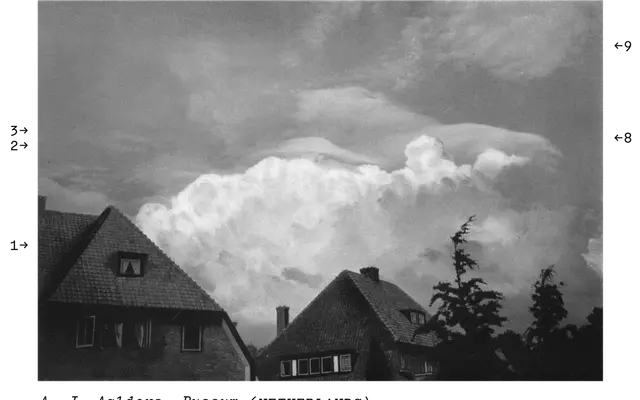
LL Electa
Lineto · Luca Pellegrini · 2026
A rationalized revival of the Olivetti Pica typewriter font, drawn from the metal type bars rather than the softer impressions left on paper.
Luca Pellegrini worked directly from the metal type bars of a vintage Olivetti Studio 42 to arrive at sharper, more geometric outlines than the worn impressions typical of digital typewriter revivals. The design foregrounds features that paper could never reproduce cleanly, including perfectly rectangular slab serifs and precise curve dynamics, while the italics draw on separate historical typewriter models rather than the Olivetti source. Three weights, each with italic, stay close enough in tone to read as a typewriter family whilst exceeding anything achievable through manual variation of paper stock and keystroke pressure.
A monospaced typewriter-style font derived from the Olivetti Pica typeface, featuring rationalized slab serifs and uniform character spacing characteristic of typewriter fonts.